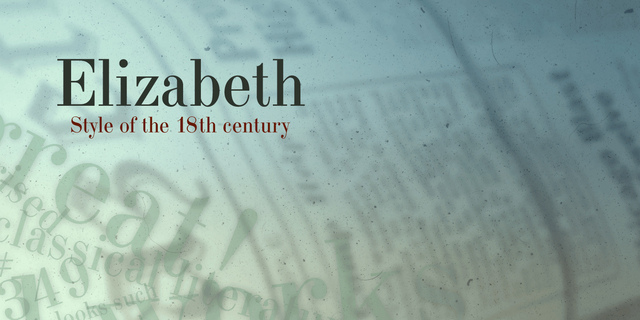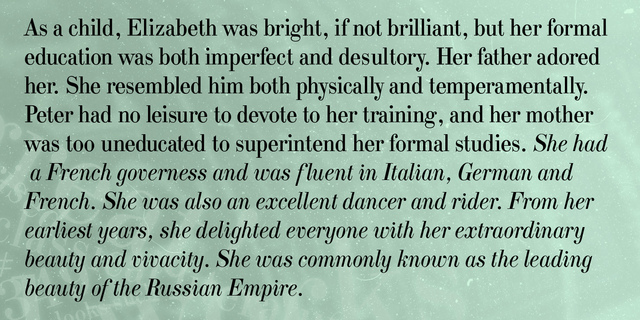
Elizabeth (2 fonts)
The hand composition typeface was developed at the Ossip Lehmann type foundry (St. Petersburg) in 1904-07 (after designs by Alexander Leo?). It was redeveloped at Polygraphmash in 1960s for slugcasting composition. Named after Russian Empress Elizabeth I (1709-61). Based on typefaces of George Revillon type foundry of 1840s, though some characters’ shapes were redrawn similar to Russian Academy of Sciences typefaces (mid-18th century). Sharp contrast, strong weight Modern Serif with archaic flavor. The typeface is useful in text and display composition, in fiction, historical and art books, especially relating to the 18th or 19th centuries. It looks great in Russian classical literature such as Pushkin’s and Gogol’s works. The revised, improved and completed digital version was designed at ParaType in 2001 by Lyubov Kuznetsova.
Features of font family ElizabethThe hit of the decade:
Hit of 1900s Close to historical original:
Associations for font family ElizabethTypeface personality and character:
flat, rich, classic, cultured, aristocratic, salon art, solemn, voiced, static, noble, masterful, expensive, traditional, high-quality, cultural, aesthetically beautiful, famous, precious, select, sharp, antique, nostalgic, old-fashioned, romantic, ancient, historical, proud, silver, theatrical, dramatic, Glamorous, luxurious, elite, polite
Typeface exhibits stylistic traits: